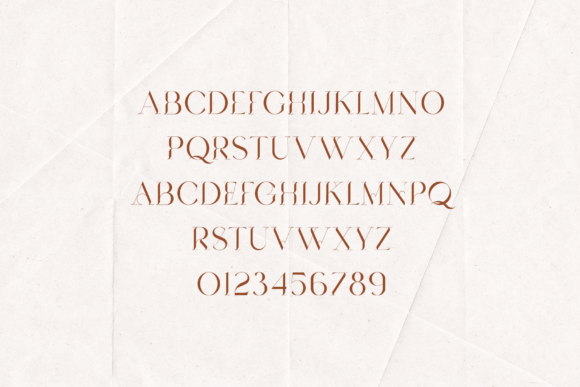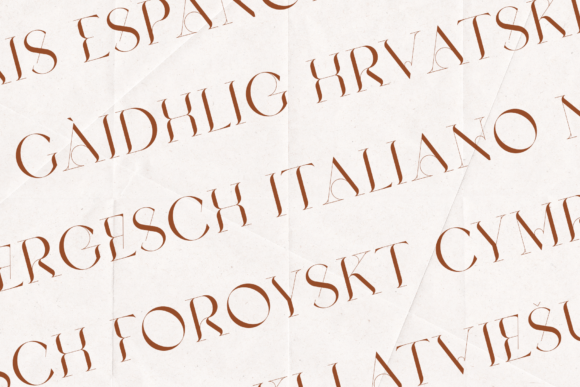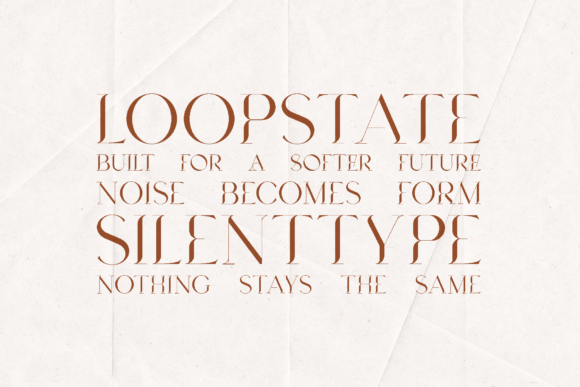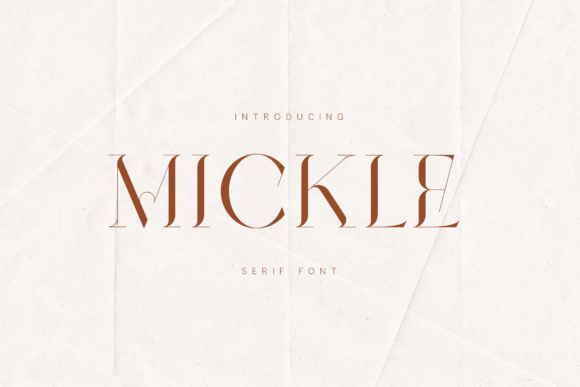
Introduction to Mickle Font
Mickle is an elegant high-contrast serif font crafted for refined, modern design.
With its delicate strokes, sharp terminals, and graceful curves, it brings a sophisticated and luxurious tone to any composition The typeface balances classic serif influence with contemporary minimalism.
Key Features of Mickle Font